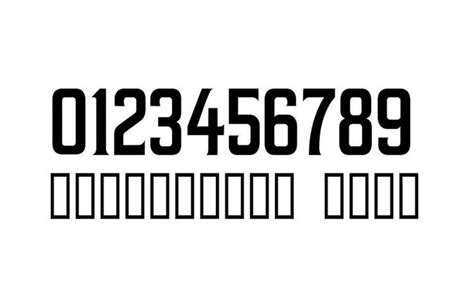
MLB Font: Free Download For Your Baseball Projects
MLB National Font Free Download
Hey guys! Ever wondered about that awesome font used for the MLB National teams? You know, the one that just screams baseball? Well, you’re in the right place. Today, we’re diving deep into the world of the MLB National font, where to find it, and how to use it for your own projects. Whether you’re designing a cool poster, creating some social media graphics, or just want to add a sporty touch to your work, this guide will help you hit a home run!
What is the MLB National Font?
So, what exactly is the MLB National font? Well, it’s not just one font . Each MLB team often has its own unique typeface that represents its brand. These fonts are carefully chosen to reflect the team’s history, personality, and overall image. When we talk about the MLB National font in general, we’re usually referring to the various fonts used by teams in the National League. Each of these fonts contributes to the overall aesthetic of baseball, making it instantly recognizable and deeply connected to the sport. This distinct visual identity helps fans connect with their favorite teams and adds to the excitement of the game.
Now, you might be thinking, “Why all the fuss about a font?” Think about it – a font isn’t just a way to display letters. It’s a powerful design element that can evoke feelings, memories, and associations. The MLB National font is no exception. These fonts are designed to capture the spirit of baseball . The bold, strong lettering often conveys a sense of power, tradition, and athleticism. Imagine seeing the New York Mets logo without its distinctive font – it just wouldn’t be the same, right? The right font can make a huge difference in how a team is perceived and remembered.
Moreover, the MLB National font plays a crucial role in branding . Consistent use of a specific font helps fans easily identify and connect with their favorite team. Whether it’s on jerseys, merchandise, or promotional materials, the font is a key element that reinforces the team’s identity. This consistent branding is essential for building a loyal fan base and creating a strong sense of community around the team. Plus, let’s be real, who doesn’t love sporting their team’s gear, complete with that iconic lettering? It’s a badge of honor, a way to show your support, and a visual representation of your team pride. The fonts are more than just letters; they’re symbols of dedication and passion.
Don’t forget to check out online forums and blogs dedicated to design and typography. These communities often share resources and recommendations for free fonts. You might find a thread where someone is asking about MLB fonts and other users are sharing their favorite alternatives. These forums can be a wealth of information, and you can even ask for recommendations yourself. Just be sure to do your research and verify the source of any font you download to avoid any potential issues with malware or copyright infringement. Safety first, guys!
How to Use MLB National Fonts in Your Projects
Okay, so you’ve found a font that you love – now what? Here’s how to put that MLB National font to good use in your projects. First, consider the overall aesthetic you’re going for. These fonts are typically bold, sporty, and attention-grabbing, so they’re perfect for headlines, titles, and logos. Avoid using them for large blocks of text, as they can be difficult to read in smaller sizes. Think about where you want your audience to look first, and use the font there. This helps to draw the eye and create a sense of excitement and energy in your design.
Next, think about the colors you’re using in your project. MLB National fonts often look great in team colors, such as red, white, and blue, or black and orange. These colors can help reinforce the connection to baseball and create a cohesive look. Experiment with different color combinations to see what works best for your design. You can also use gradients or shadows to add depth and dimension to the font, making it even more eye-catching. The key is to make sure the colors complement the font and enhance the overall message you’re trying to convey.
Pay attention to spacing and kerning . Kerning is the adjustment of space between individual letters to create a visually pleasing and balanced appearance. Proper kerning can make a huge difference in the readability and overall look of your font. Many design programs have built-in kerning tools that can help you fine-tune the spacing between letters. If you’re not sure where to start, try adjusting the kerning until the letters appear evenly spaced and balanced. A little bit of tweaking can go a long way in making your font look professional and polished.
And of course, don’t be afraid to experiment ! Try using the font in different sizes, weights, and styles to see what works best for your project. You can also combine it with other fonts to create a unique and interesting look. Just be sure to choose fonts that complement each other and don’t clash. A good rule of thumb is to use no more than two or three different fonts in a single design. Too many fonts can make your design look cluttered and confusing. Have fun and let your creativity shine!
Tips for Choosing the Right Baseball Font
Choosing the right baseball font can be tricky, but here are a few tips to help you make the right decision. First, consider the team or league you’re trying to represent. Each team has its own unique identity and style, and you’ll want to choose a font that reflects that. For example, if you’re designing something for the New York Yankees, you might want to choose a classic, bold font that conveys a sense of tradition and history. On the other hand, if you’re designing something for a more modern team, you might want to choose a more contemporary and edgy font. The key is to match the font to the team’s personality.
Next, think about the overall tone of your project. Are you trying to create something fun and playful, or something serious and professional? The font you choose should reflect that tone. If you’re designing a poster for a kids’ baseball game, you might want to choose a fun, cartoonish font. But if you’re designing a brochure for a corporate sponsor, you’ll want to choose a more sophisticated and professional font. Consider the target audience, and tailor the font to resonate with them.
Don’t be afraid to ask for feedback . Show your designs to friends, family, or colleagues and get their opinions on the font. They might have insights or suggestions that you hadn’t considered. Sometimes it takes a fresh pair of eyes to spot potential issues or identify opportunities for improvement. Be open to constructive criticism, and use it to refine your designs and make them even better. Collaboration and feedback are essential parts of the design process.
Finally, trust your instincts . Ultimately, the best font is the one that you feel is right for your project. If you love the way a particular font looks and feels, go for it! Don’t be afraid to break the rules and experiment with different styles. The most important thing is to create something that you’re proud of and that effectively communicates your message. Design is a subjective art, so trust your creative vision and let your personality shine through!
So, there you have it – a comprehensive guide to finding and using MLB National fonts for free! While you might not be able to download the exact official fonts, there are plenty of great alternatives out there that capture the spirit of baseball. Remember to check the license agreement before using any font, and don’t be afraid to experiment and have fun with your designs. With a little creativity and effort, you can create stunning visuals that capture the excitement and passion of MLB. Now go out there and knock it out of the park!